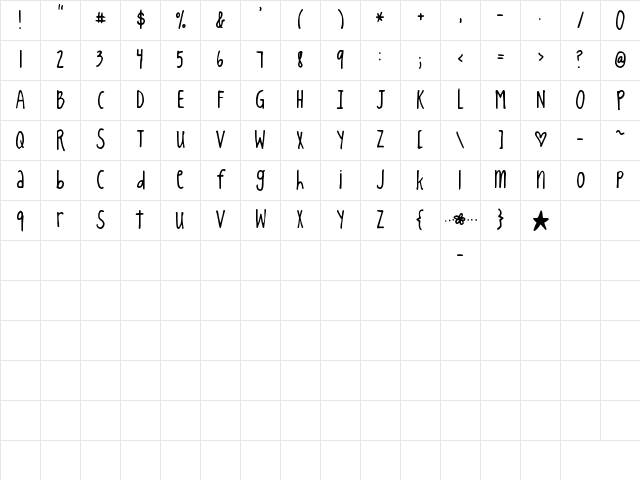
king cooL KC Regular Free Font
king cooL KC Regular
Designer: Kimberly Geswein
Design Context for king cooL KC
king cooL KC is a composed and adaptable typeface that performs quietly and consistently across a wide range of design contexts.